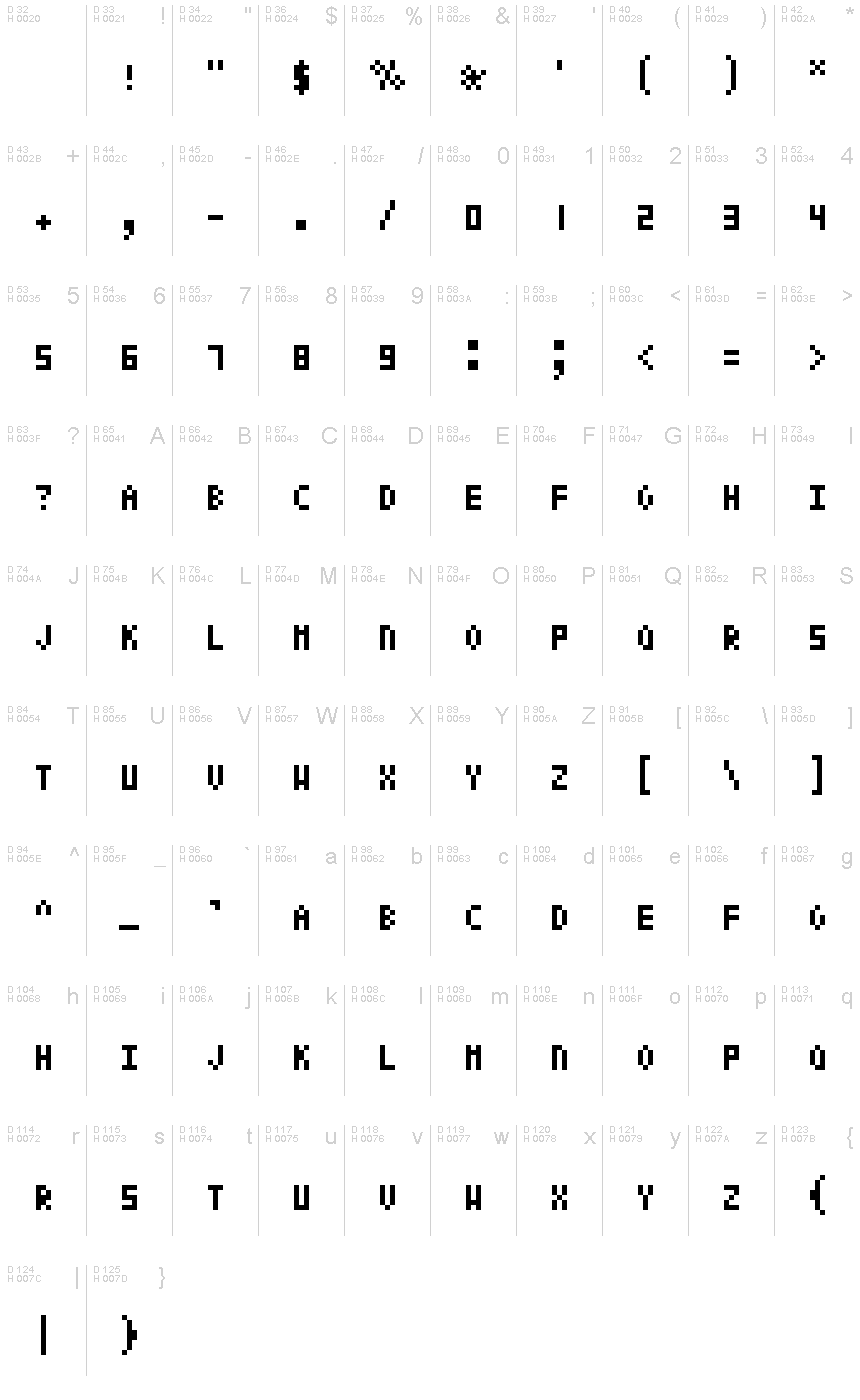
PixelText
Pixel Text - a bold, pixelated font that commands attention. Designed by Rosden Shadow, this bitmap font exudes a retro-futuristic charm, its chunky letterforms evocative of the golden age of arcade games and early digital displays. The condensed width amplifies the visual impact, lending an air of confident minimalism to any design.
Pixel Text excels in grabbing the viewer's focus, making it an ideal choice for bold headlines, eye-catching logos, or gritty, low-fi aesthetics. Its striking pixelated style lends itself seamlessly to a wide range of applications, from vintage-inspired branding to cutting-edge digital art.
Embrace the unapologetic, digital-age allure of Pixel Text and unleash the power of this distinctly modern typographic statement.